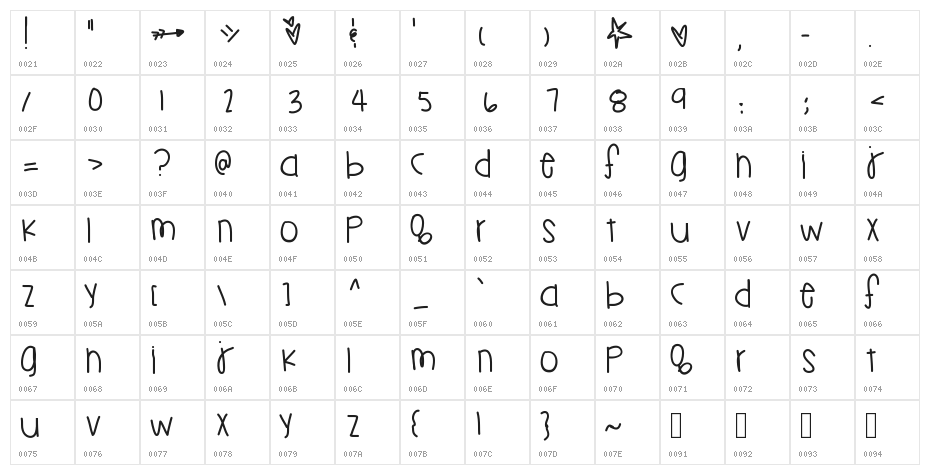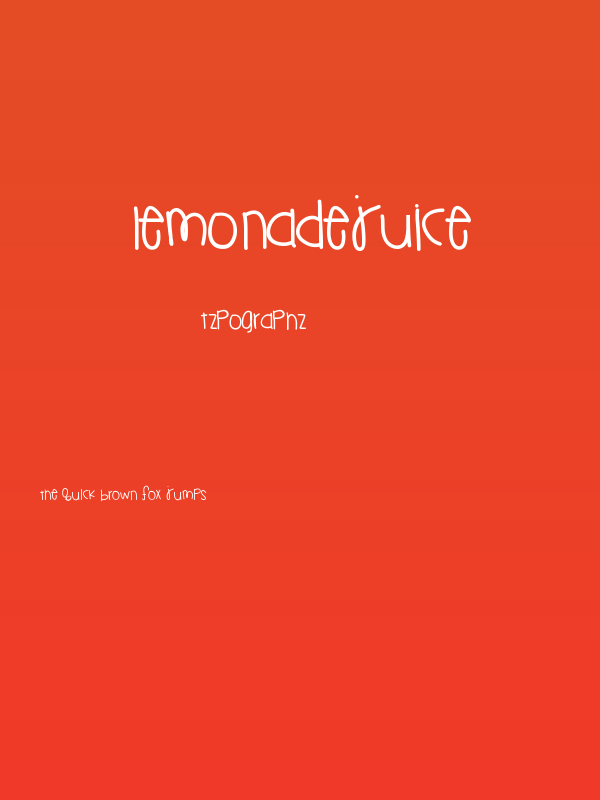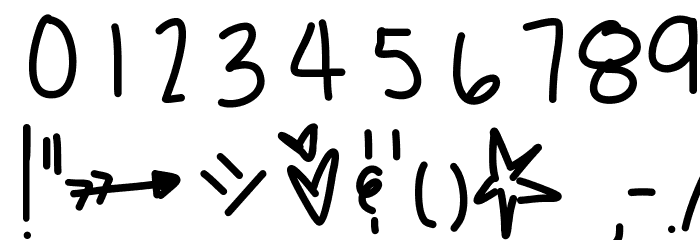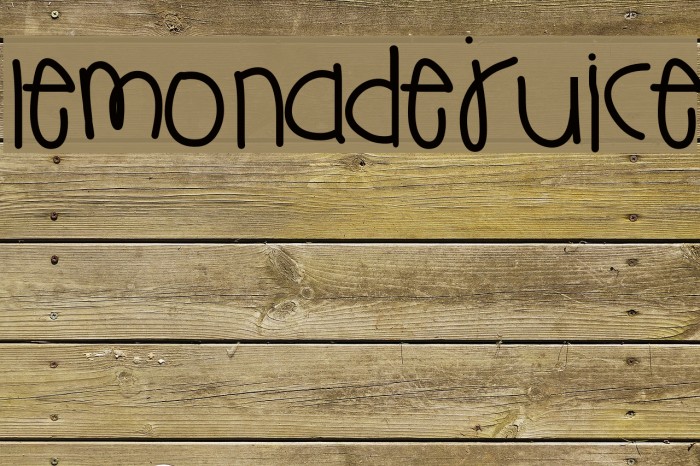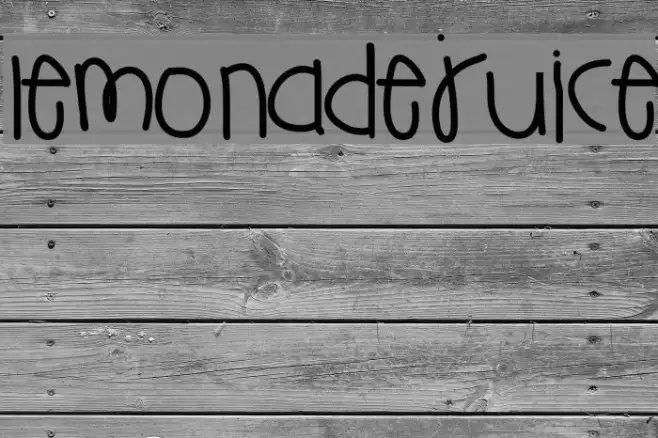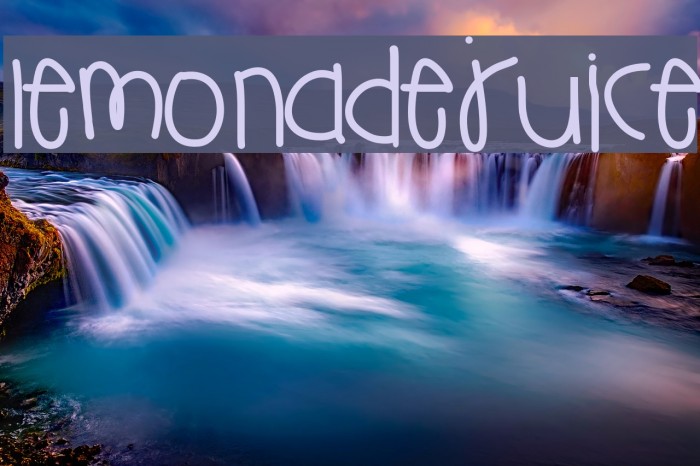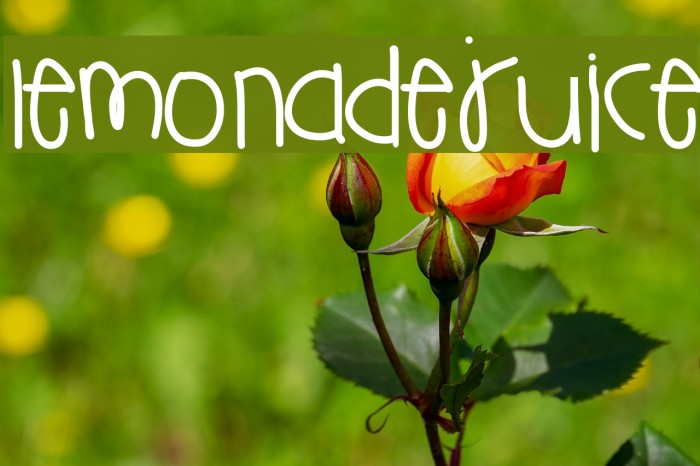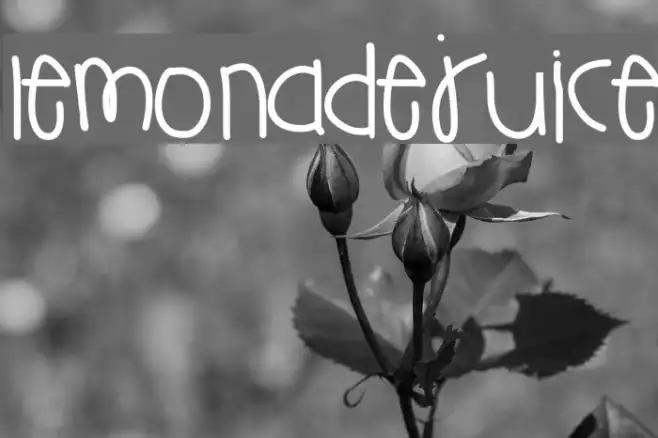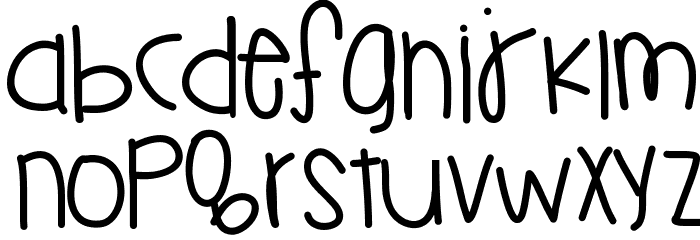
LemonadeJuice Font
LemonadeJuice Description
This playful and whimsical font features a handwritten style with a casual and friendly appearance. The characters are slightly irregular, giving it a personal touch that mimics natural handwriting. The strokes are consistent in thickness, providing a uniform look across all characters. The letters are rounded and smooth, contributing to its approachable and informal vibe. The font includes a full set of uppercase and lowercase letters, numbers, and a variety of special characters, making it versatile for different design needs. Its unique style is perfect for projects that require a touch of personality and creativity.